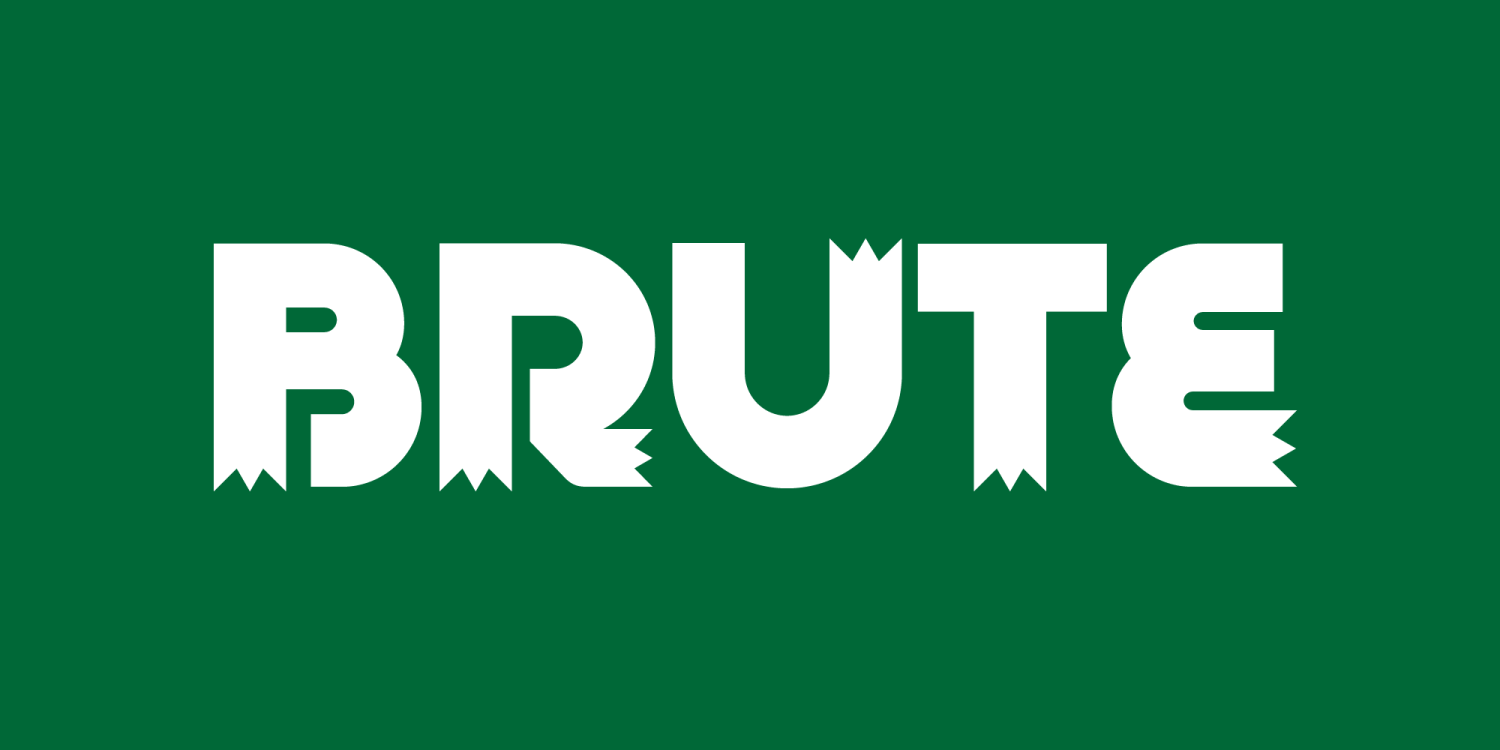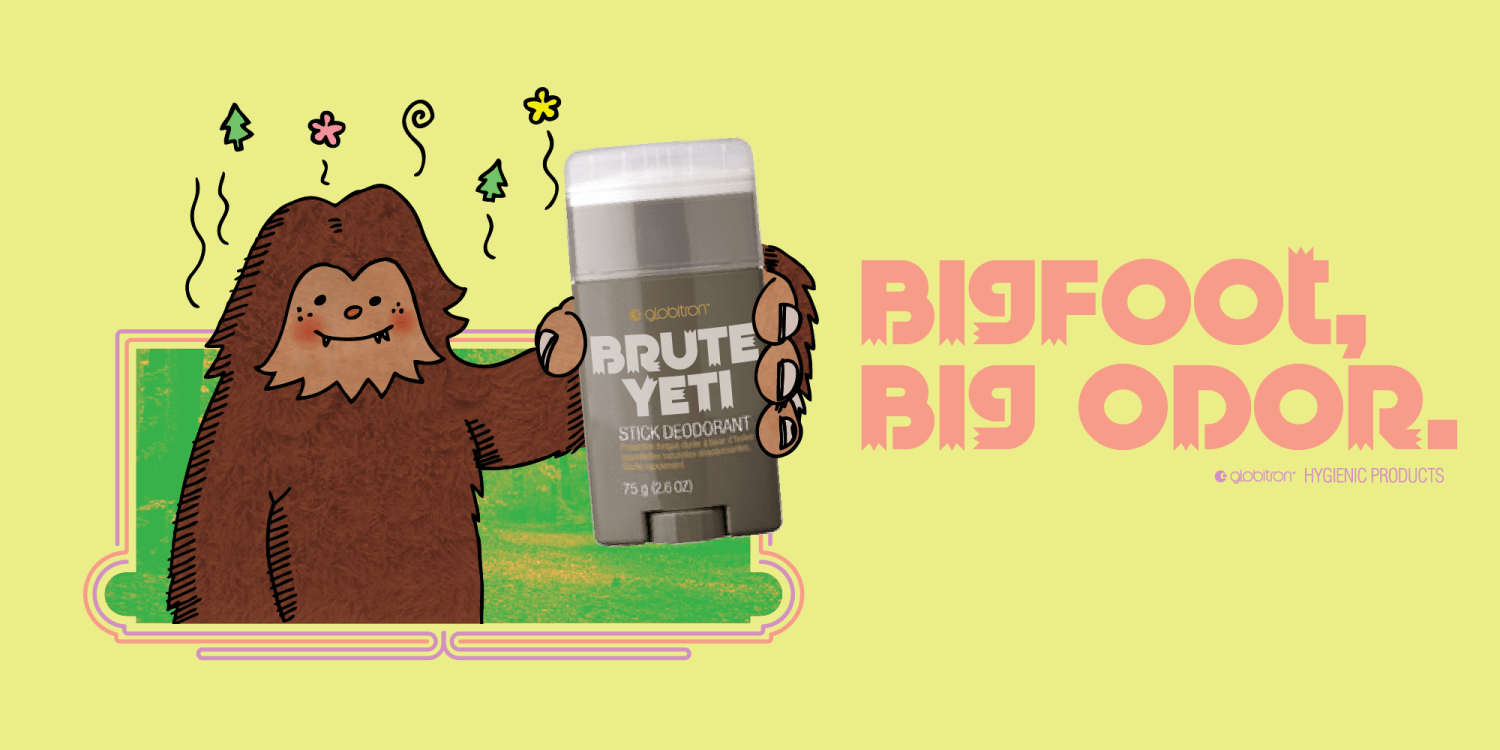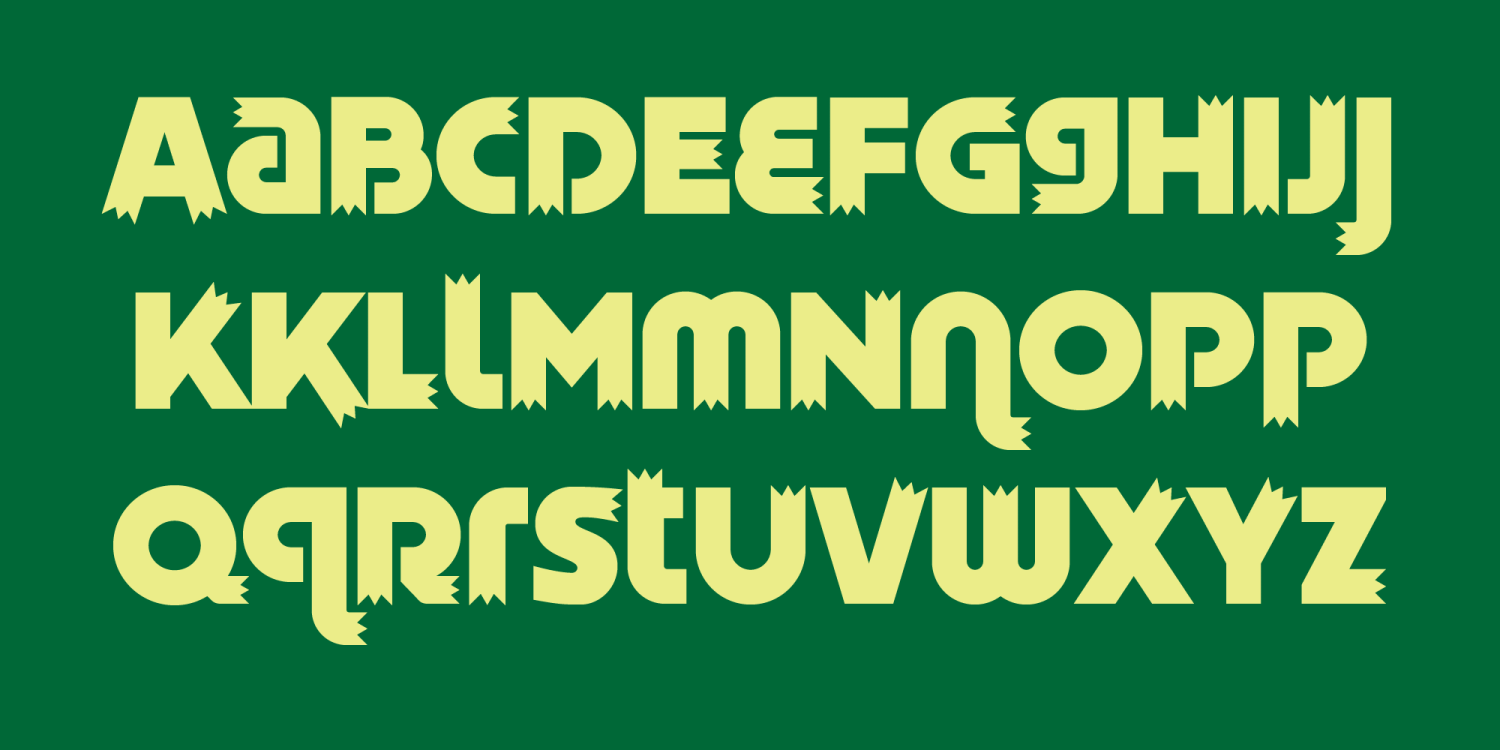
This previous summer, a few gentlemen in the southern United States held a press conference and stated that not only did they discover the remains of the body of the famous folklore legend, Bigfoot, but there were scores of them, living in a community in a secret forest. Well, I did the first thing any normal, red-blooded American would have done: I started full-scale production on a line of hygiene products specifically targeted at our larger-than-life brethren, and sparing no expense on making it the top of the line. I don't have to be the first to tell you this story does not have a happy ending for me. After the media cried hoax on the Bigfoot discovery, yours truly was left with a warehouse full of extra strength medicated Sass-crotch powder and a valuable lesson: Don't borrow $400,000 from the mafia.